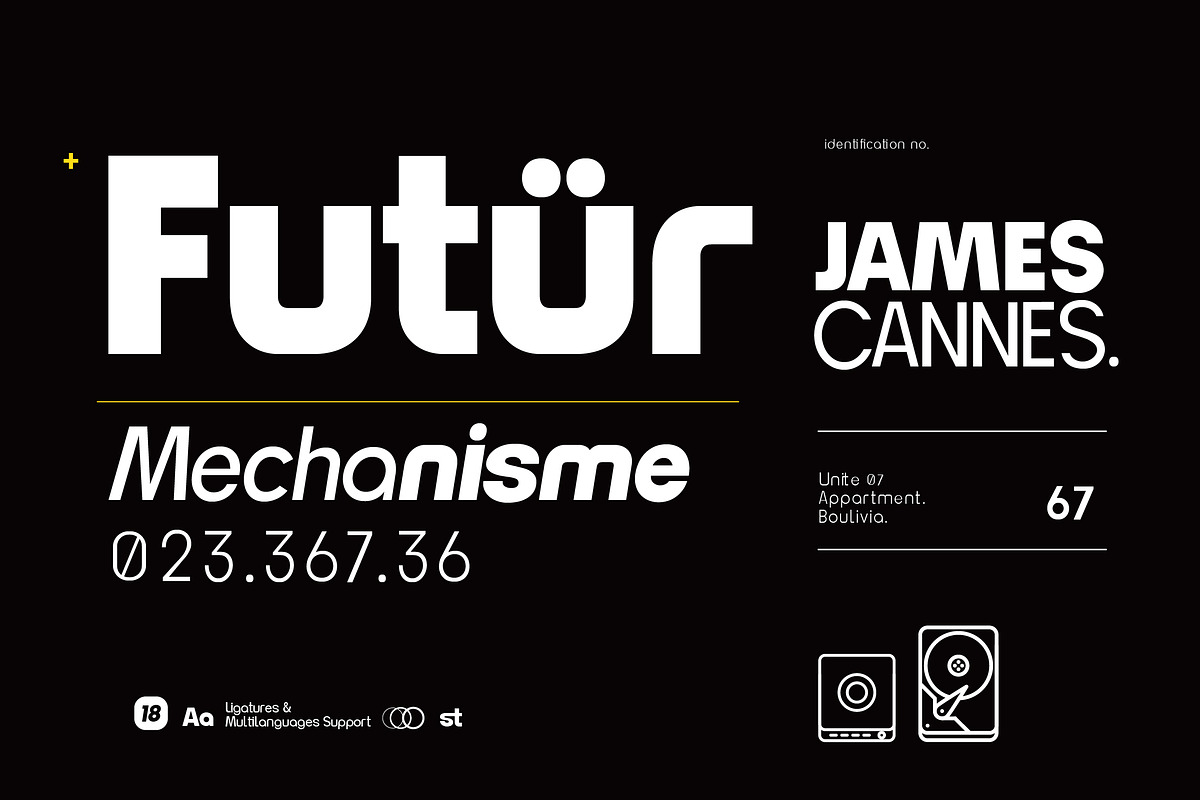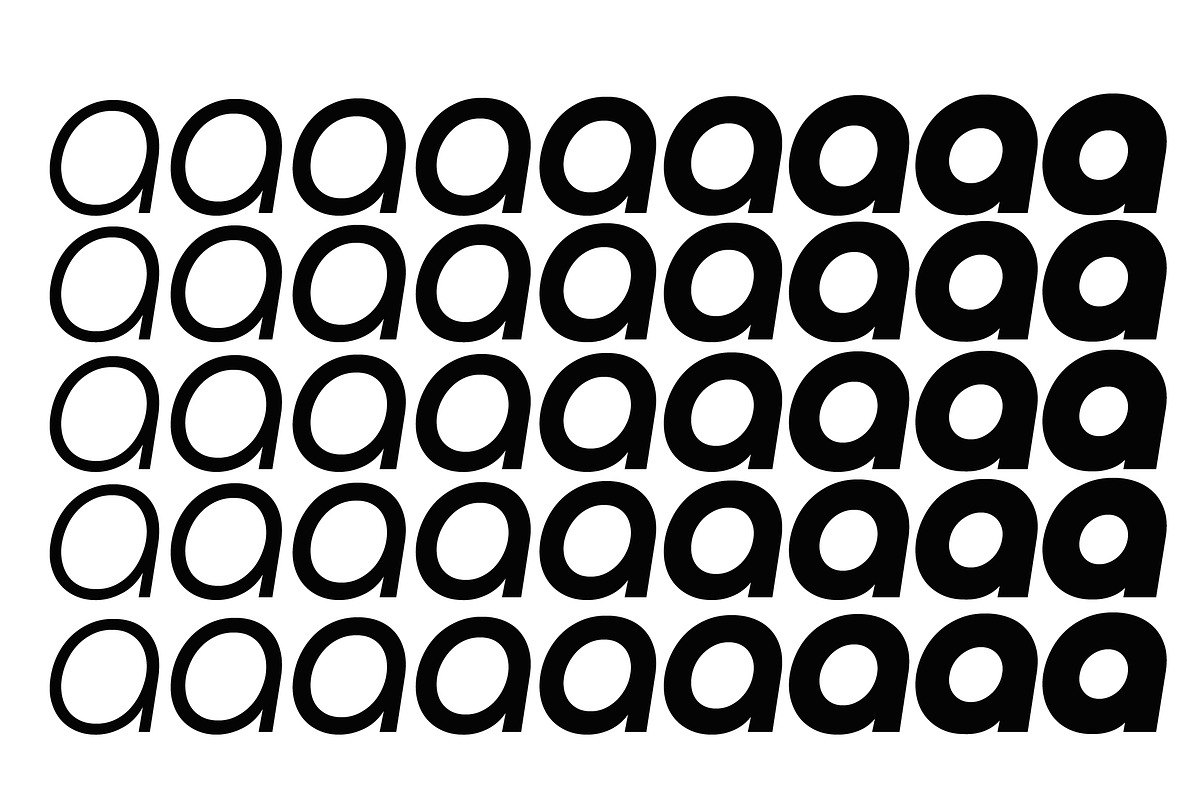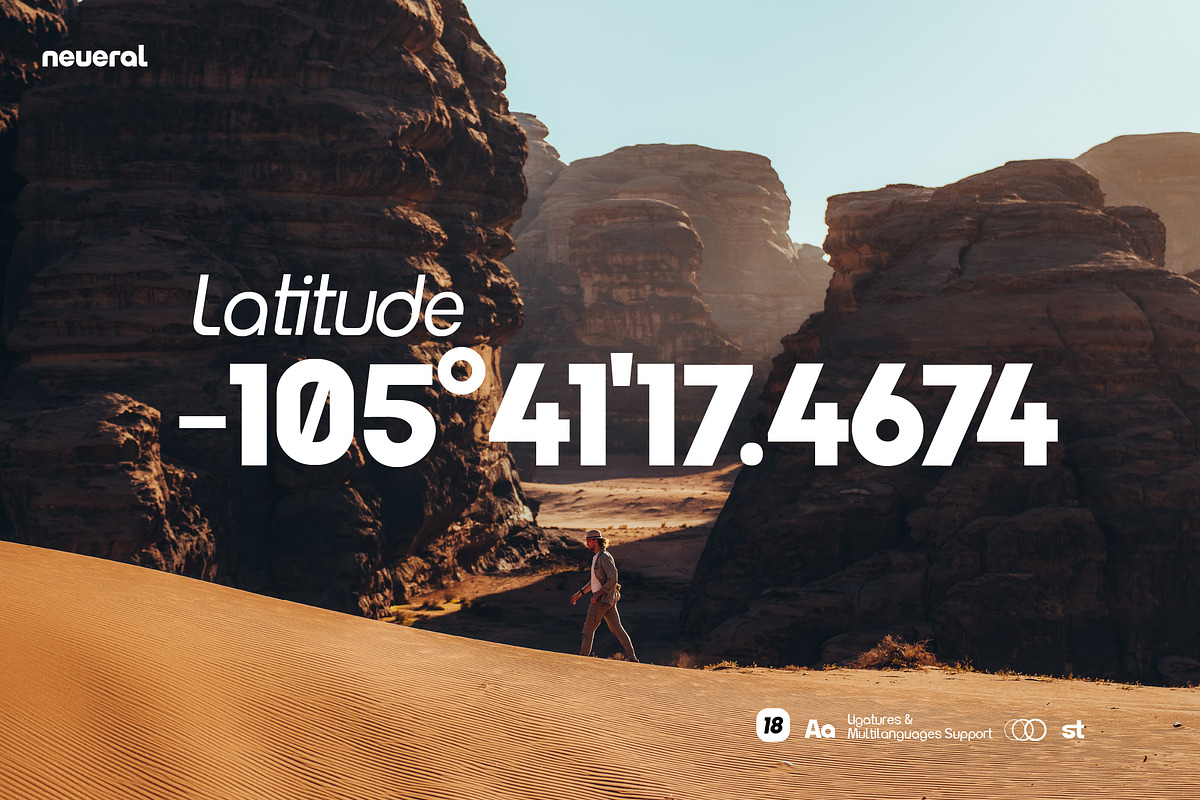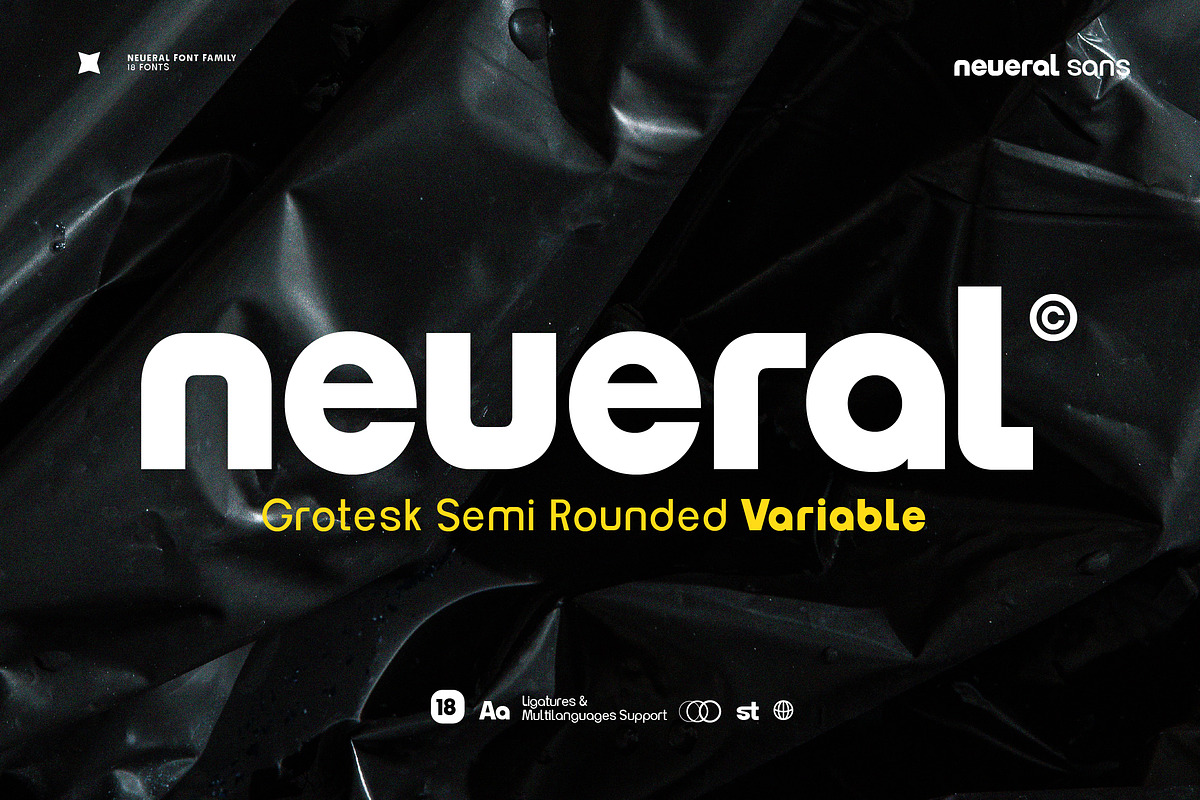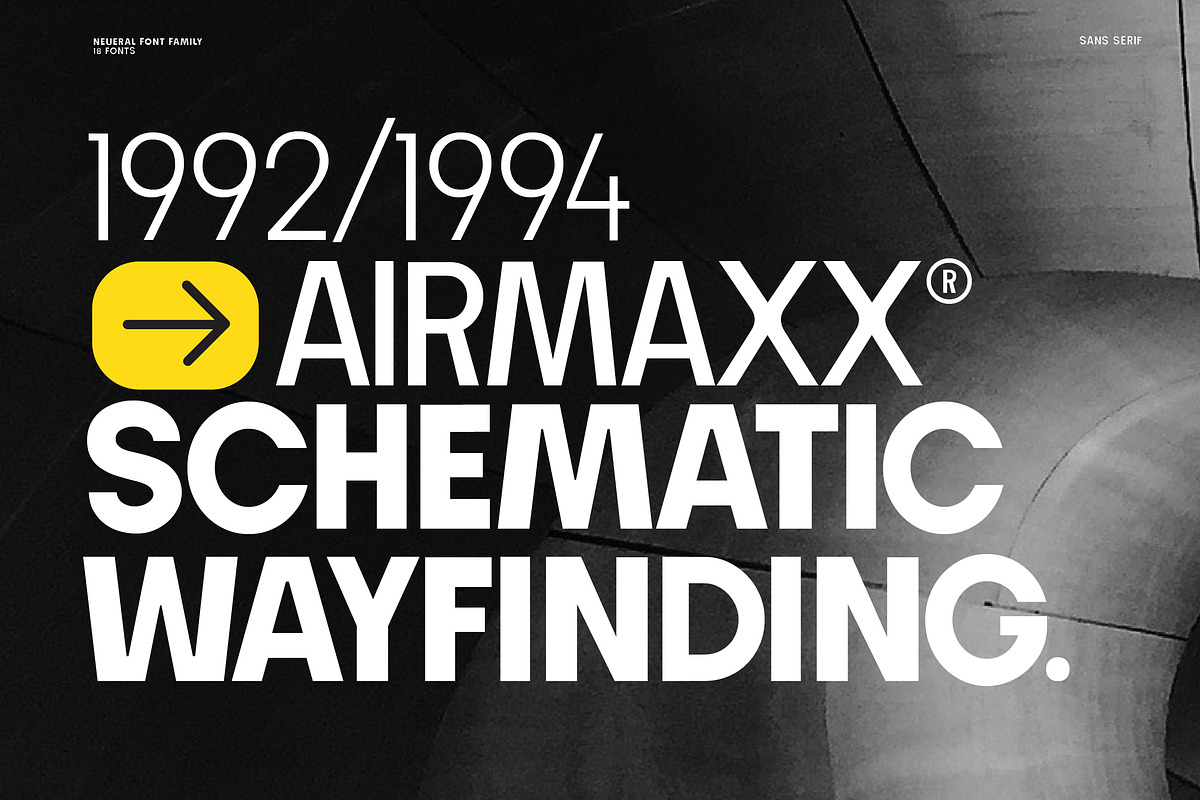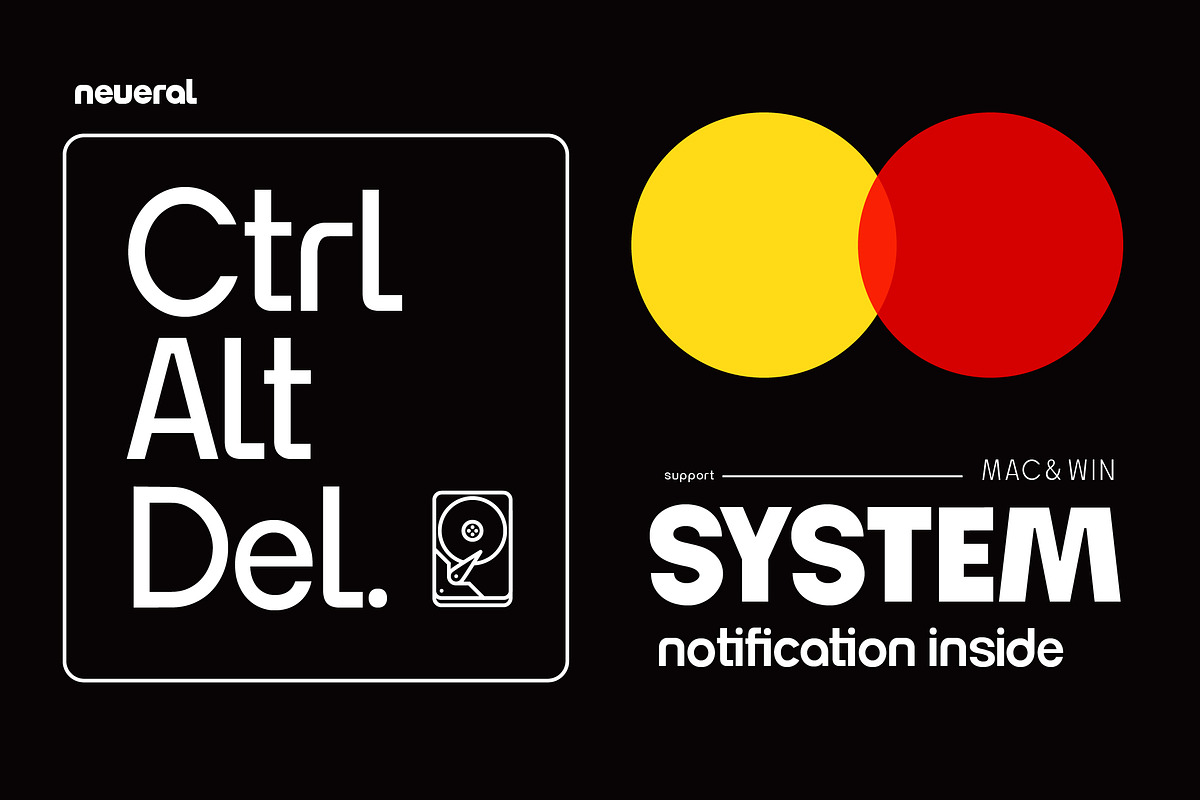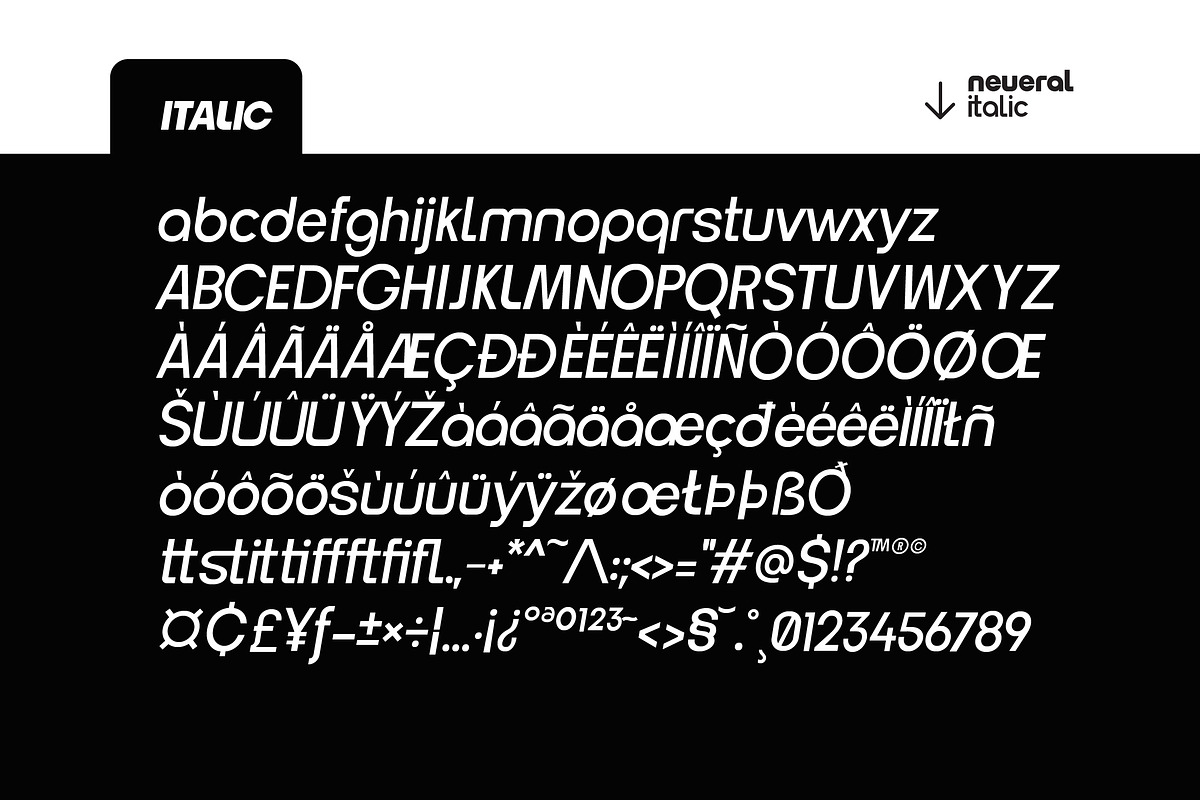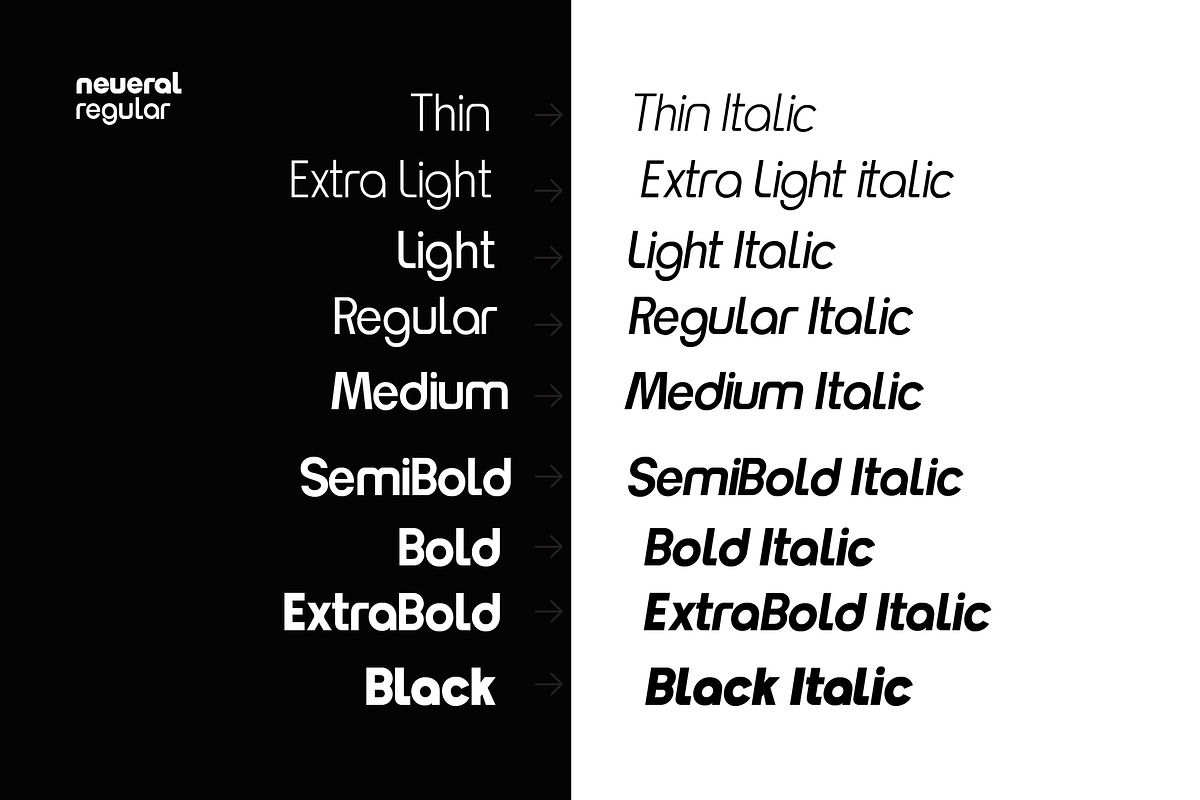
Neueral Grotesk Family
Neueral is a semi-round and geometric sans serif font, with flexibility and modern every glyphs, neutral font variable so it is very functional in making logo designs, article, wayfinding, system fonts, branding, business cards and many others. There are 18 fonts including Latin simple ligatures
- 19 weights regular & italic version
- Standard Ligatures & Discretionary Ligatures
- Fractions, Superscript & Subscript
- Multiple Latin Languages Supported